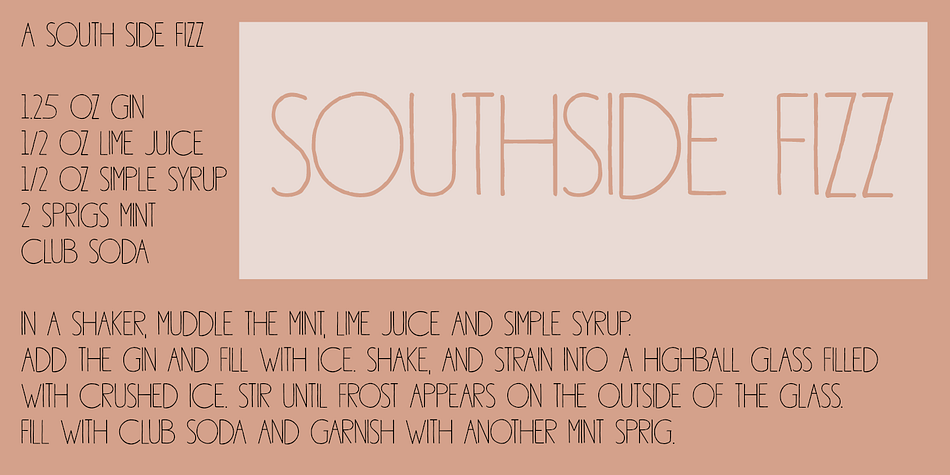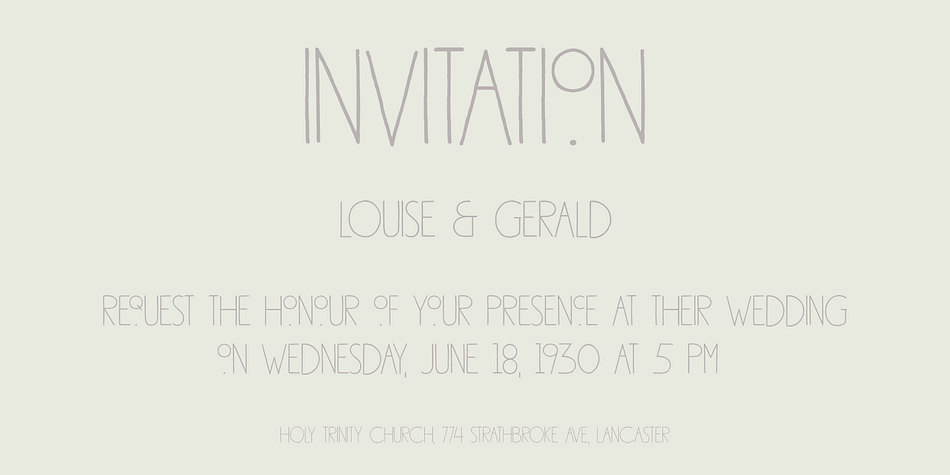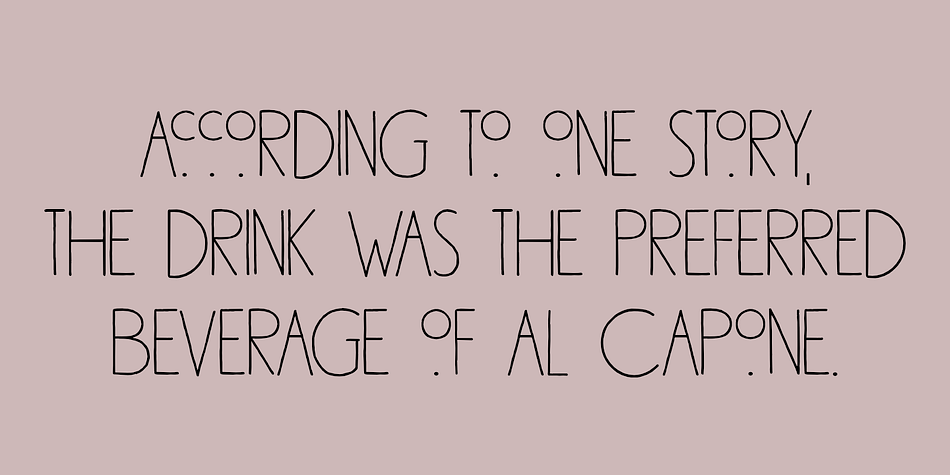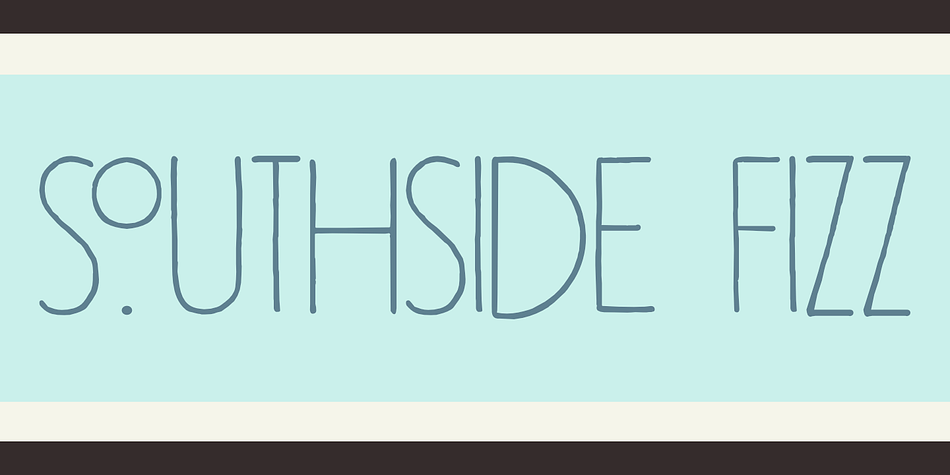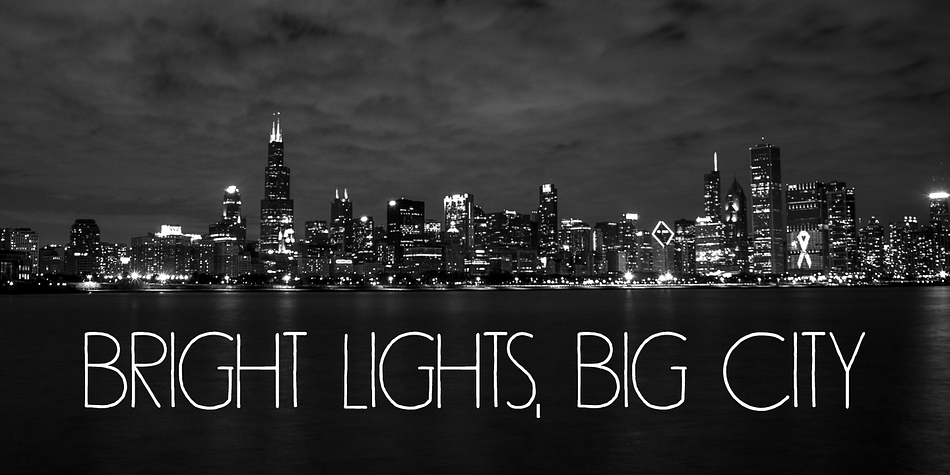
Southside Fizz is a hand display and art deco font family. This typeface has two styles and was published by Hanoded.
Southside Fizz is a cocktail (made with gin, lime, mint and soda).
Southside Fizz font was based on a single word in a 1930’s advertisement and my Palembang font. I did not have that many glyphs to work with, so I made most of them up.
Southside Fizz became a very elegant all caps Art Deco font, quite useful for wedding invitations, books and posters. It comes with a roaring amount of diacritics as well.